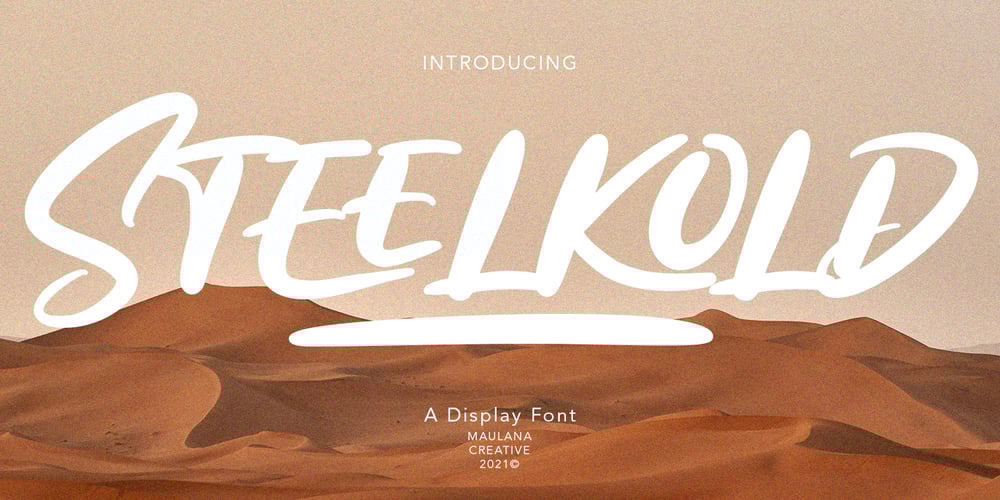
Steelkold
Steelkold font
Steelkold Font Family was designed by Gilang Maulana and published by Maulana Creative. Steelkold contains 2 styles and family package options. Steelkold is unique bold handwritten display font, with bold stroke, slant and fun character. It has Opentype features ligatures of character and extra swash, To give you an extra creative work. Steelkold font support multilingual more than 100+ language. This font is good for logo design, Social media, Movie Titles, Books Titles, a short text even a long text letter and good for your secondary text font with sans or serif. Make a stunning work with Steelkold font. Cheers, MaulanaCreative